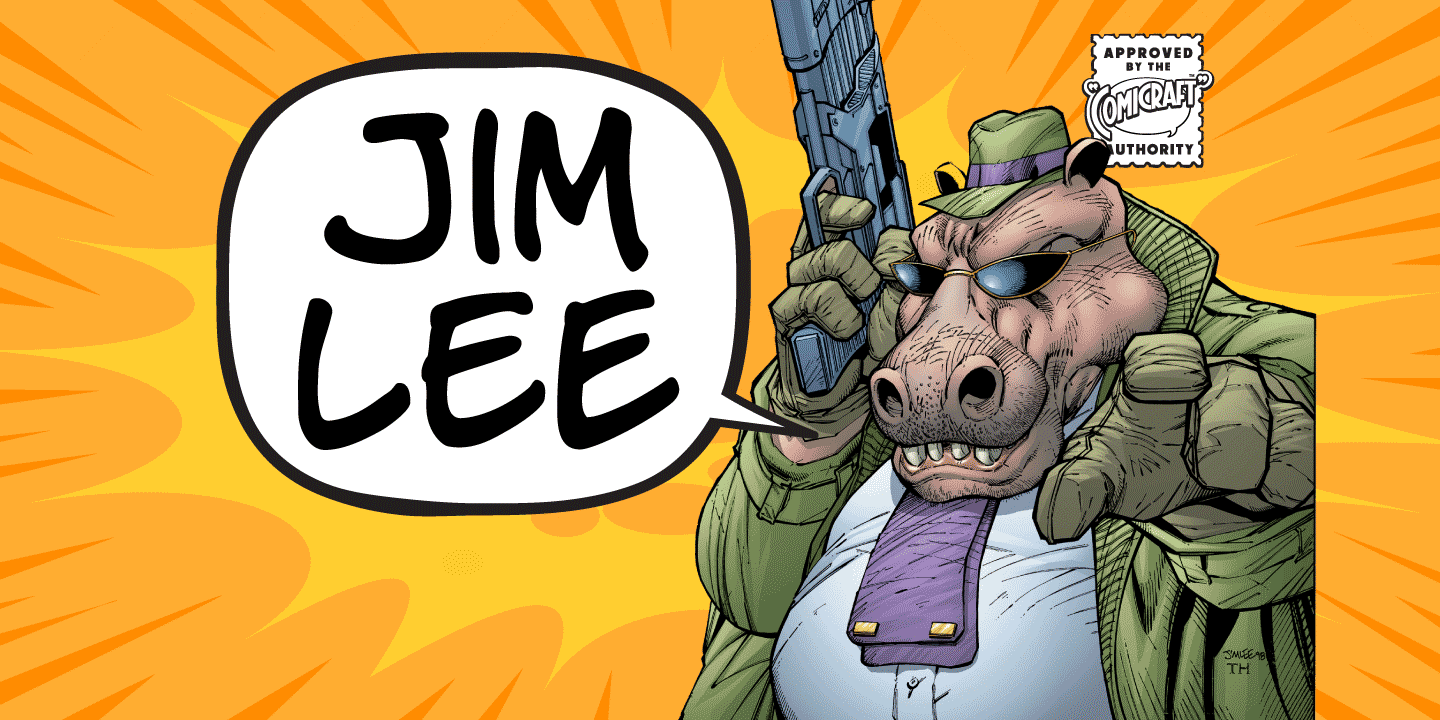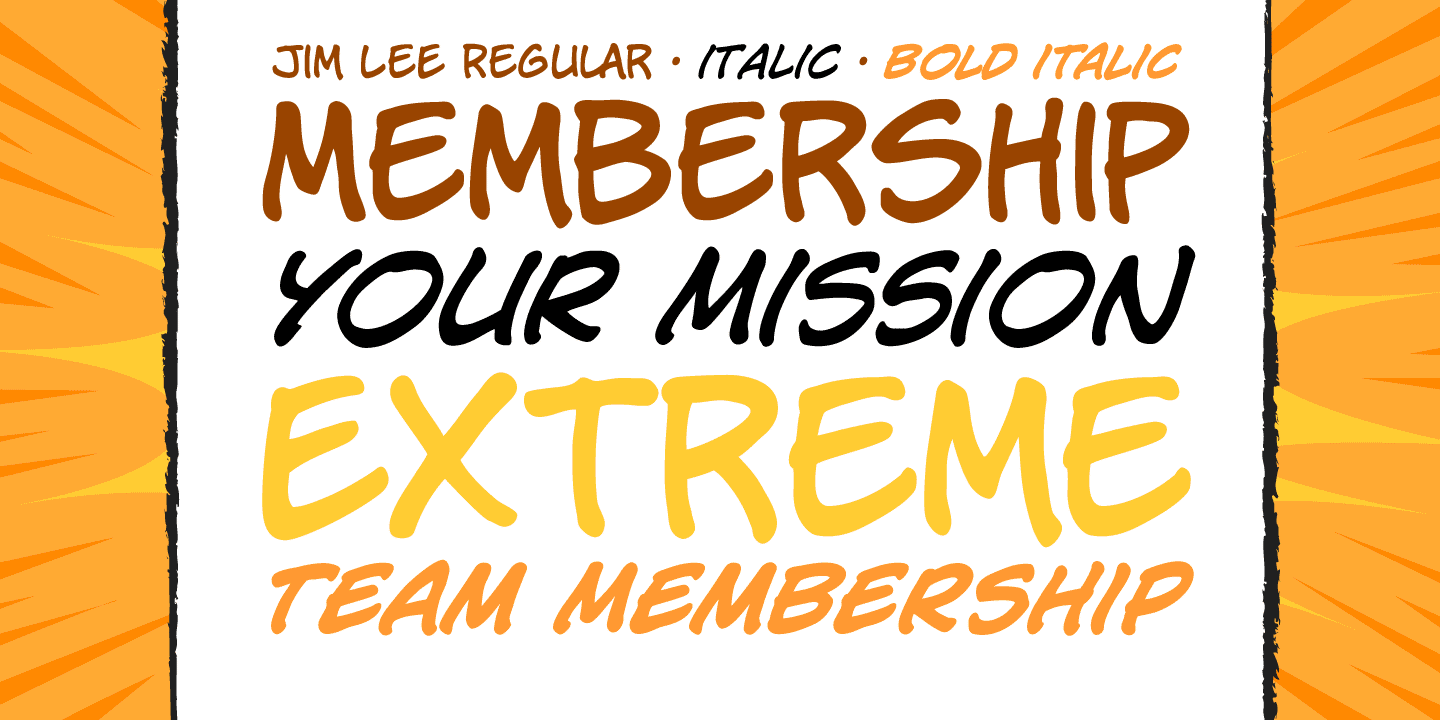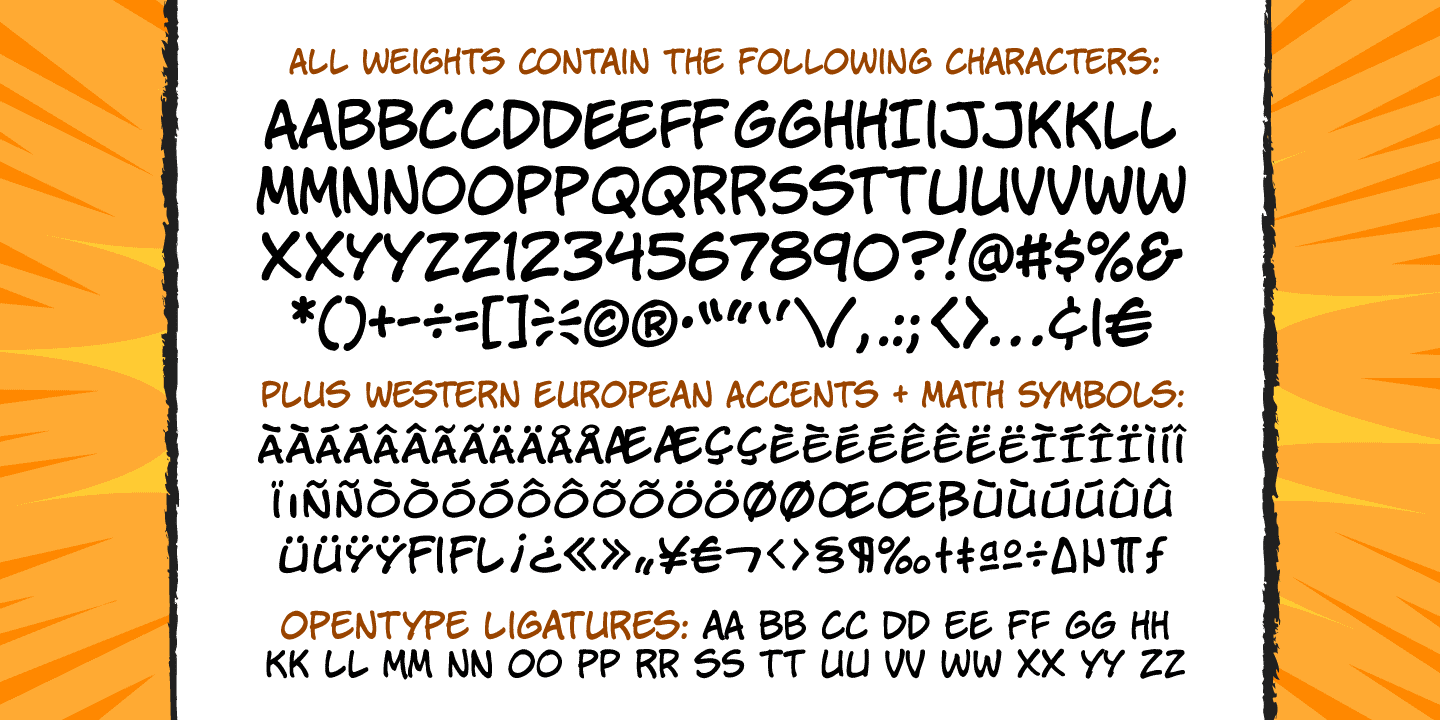
Jim Lee
Font Family by Comicraft Fonts
Jim Lee is a lively, hand-drawn font family from Comicraft Fonts with a bold, comic-inspired voice. Its thick strokes, rounded edges, and smooth curves give it an energetic, approachable feel that reads as playful and expressive without losing clarity.
With 4 styles included—Regular, Italic, Bold, and Bold Italic—it offers a flexible set for punchy display work. The casual brush-script influence and cartoon styling make it a strong fit for comic projects, posters, kid-friendly branding, social graphics, packaging, and other designs that need a friendly, dynamic look.
If you want lettering that feels informal, animated, and full of personality, this family brings that upbeat comic style in a versatile set of weights and slants.